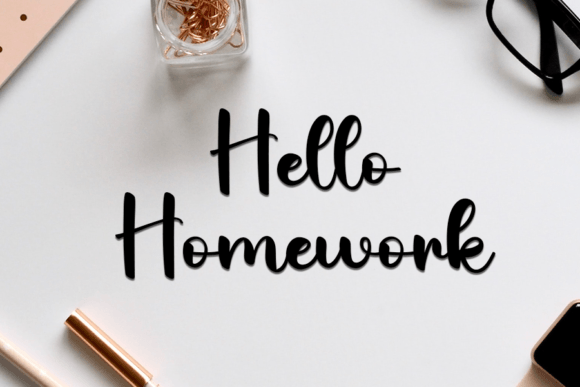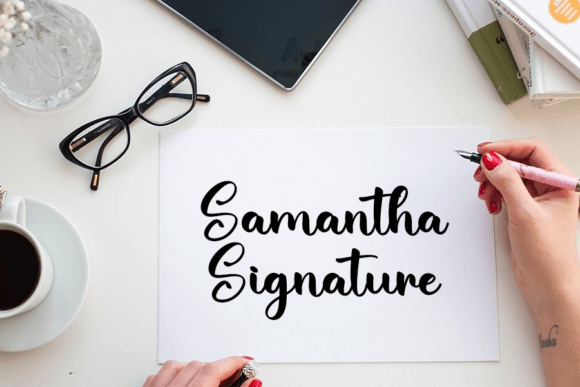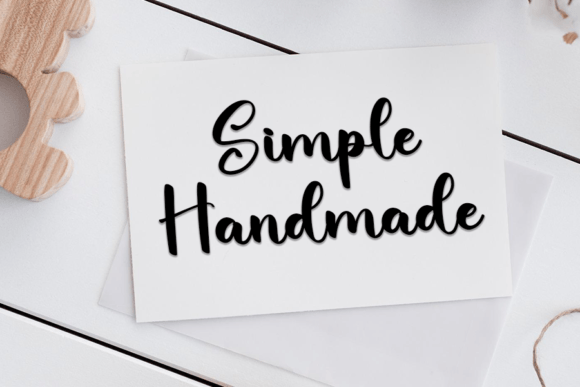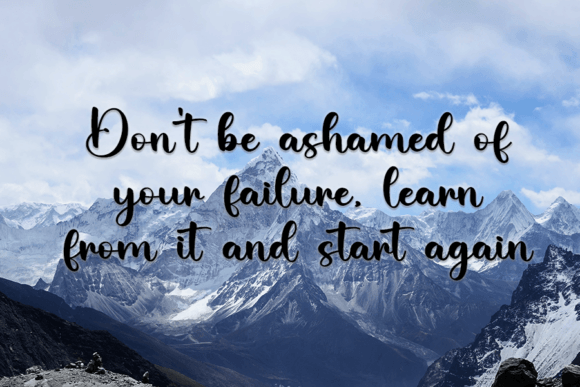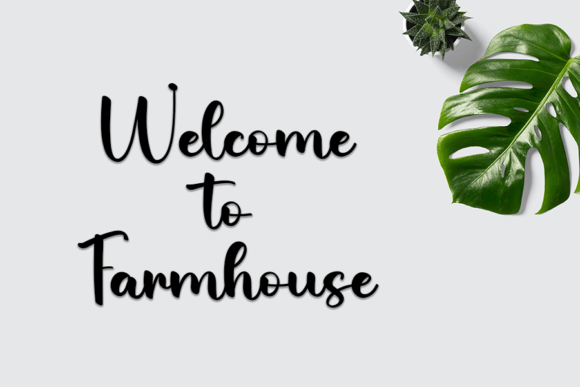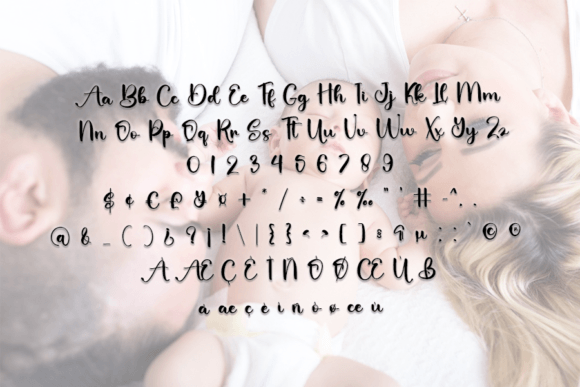
The Dream Font: Elevating Your Designs with a Touch of Elegance
Have you ever been in the middle of a design project, and suddenly, you’re stuck on finding the perfect font? I recall a recent experience where I was working on a client’s branding project, and I just couldn’t seem to find a font that captured the essence of their brand – until I stumbled upon the Dream font. This cool handwritten font has a modern vibe and a spotless form, inspired by classic calligraphy, and it’s been a game-changer for my designs ever since.
A Personal Review of Dream Font
- ✨ Balanced and varied: The Dream font strikes the perfect balance between being too thin and too thick, making it versatile for various design projects.
- ✅ Modern vibe: Its modern take on classic calligraphy gives it a fresh and contemporary feel that’s perfect for designs that need a touch of elegance.
- 💯 Spotless form: The font’s clean and precise lines make it easy to read and visually appealing.
While the Dream font is amazing, there are a few minor things to keep in mind:
- 🤔 Limited use of ligatures: While the font does come with some beautiful ligatures, they might not be as extensive as you’d like.
- ⚠️ Not ideal for body text: Due to its elegant and cursive nature, the Dream font might not be the best choice for long-form body text.
The Story Behind Dream Font
The Dream font was created with the intention of capturing the essence of classic calligraphy while infusing it with a modern twist. The designer aimed to create a font that was not only elegant but also versatile and easy to read. With its balanced and varied strokes, the Dream font has become a popular choice among designers and crafters alike.
| Font Name | Dream Font |
| Author | PAYJHOshop |
| What is the Dream font best used for? | The Dream font is ideal for designs that require a touch of elegance and sophistication, such as branding, packaging, and advertising. |
| Is the Dream font suitable for body text? | No, due to its elegant and cursive nature, the Dream font is not recommended for long-form body text. |
| Does the Dream font come with OpenType features? | Yes, the Dream font comes with OpenType features, including stylistic alternates and glyphs. |